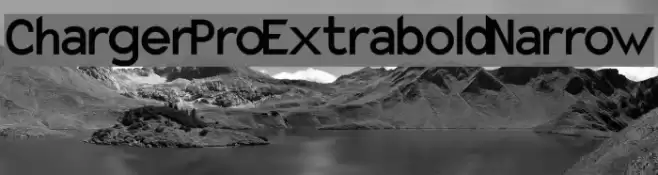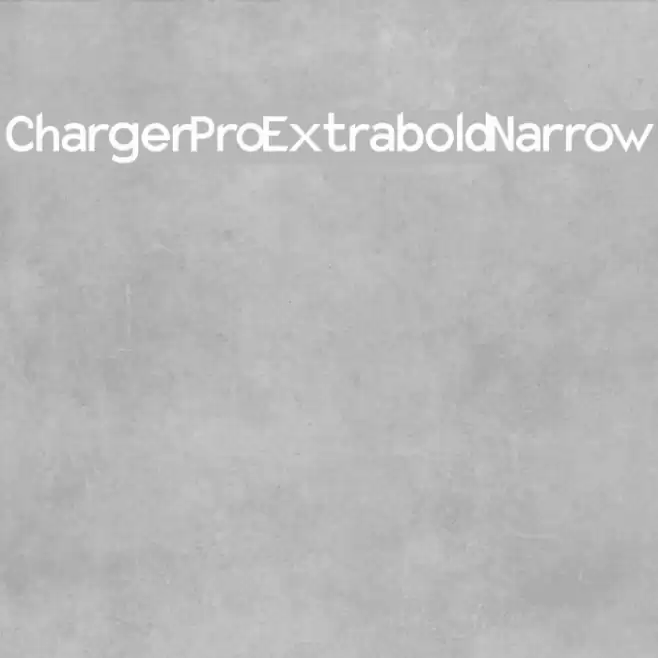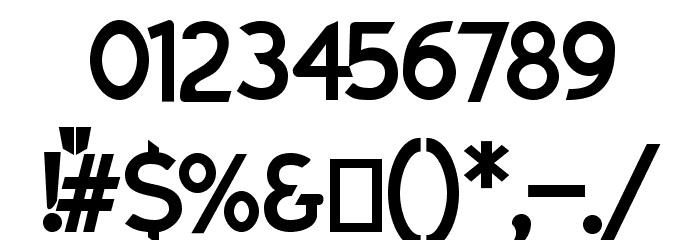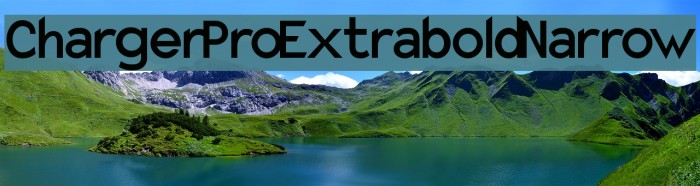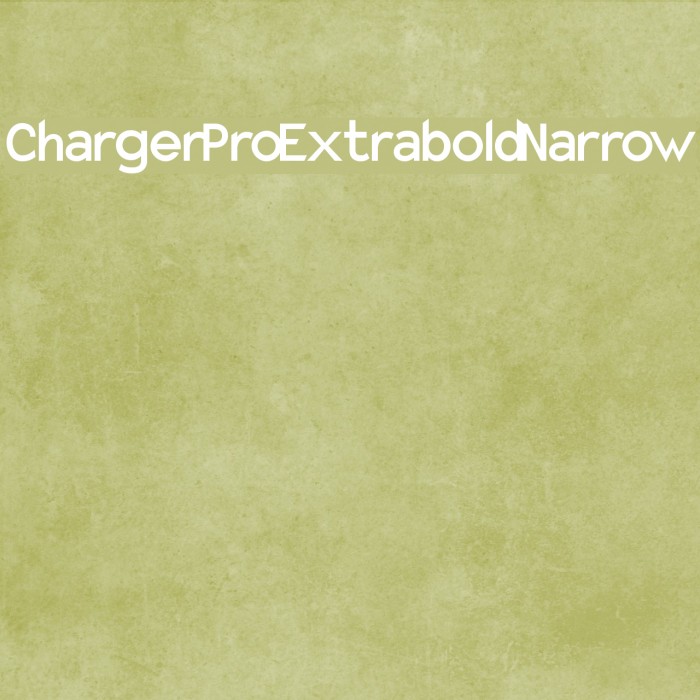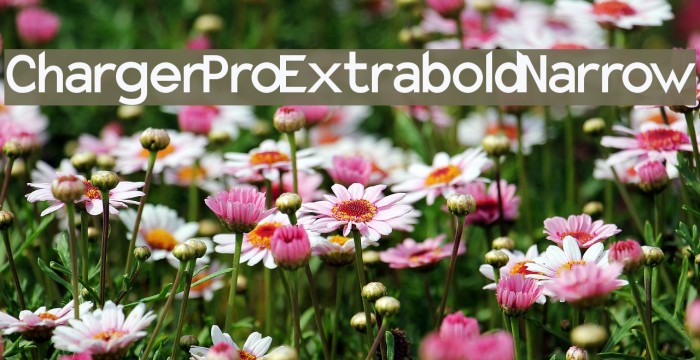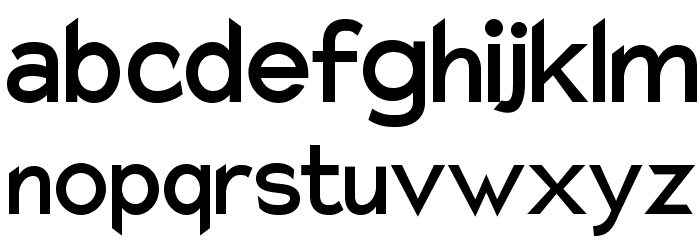
Charger Pro Extrabold Narrow Font
Charger Pro Extrabold Narrow Description
This font features a bold and narrow design, characterized by its strong, clean lines and modern aesthetic. The uppercase letters are uniform in height, with a consistent stroke width that conveys a sense of stability and strength. The lowercase letters maintain a similar style, ensuring readability and cohesion across different text sizes. The numerals are clear and distinct, making them suitable for various applications. Special characters are well-defined, adding versatility to the font's usage. Overall, this font's extra bold weight and narrow width make it ideal for impactful headlines and attention-grabbing designs.
A bold, narrow font with clean lines and a modern aesthetic from Uncategorized fonts.
- Proposed Projects: Ideal for branding, advertising, headlines, and digital media where a strong, modern presence is needed.
- Use Case: Headlines, Logos, Advertising